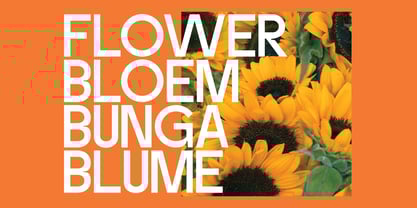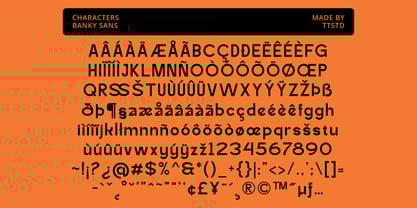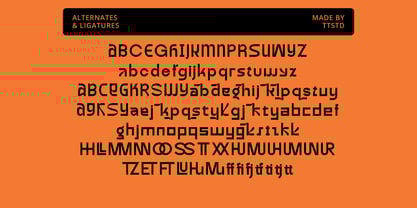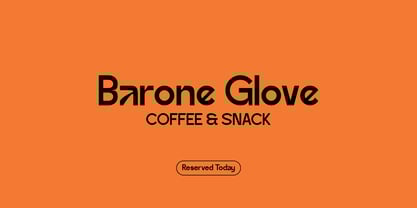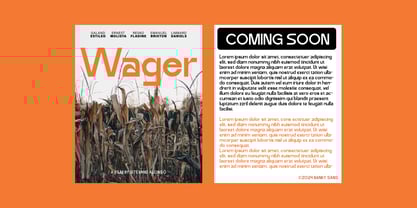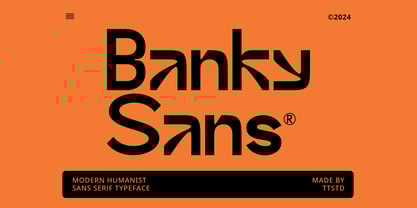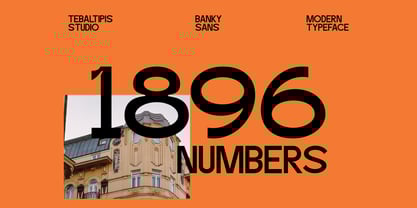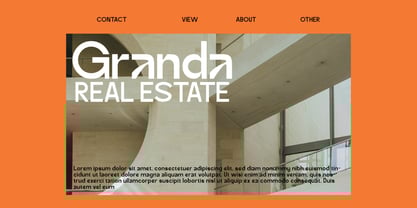
Banky Sans
by Tebaltipis Studio
The Banky Sans Font Family was designed by Dzulka Elfira and published by Tebaltipis Studio. Banky Sans contains 2 styles and family package options.
A new Banky Sans that we created special for Headline, Title and more stand out typography needs. It's so perfect to add your style and headline overview. And specially for Headline font, we crafted for unique style and modern feels so enjoy to create any project that will show your main idea out. Banky Sans - A Condensed Bold Display Typeface Banky Sans the perfect bold and narrow font for headlines and captivating displays. Ideal for designers seeking a modern and impactful look with retro and vintage vibes. Transform your projects with this regular and slant, condensed typeface that demands attention. Banky Sans Font come with 250+ glyphs. The alternative characters were divided into several Open Type features such as Swash, Stylistic Sets, Stylistic Alternates, and Ligature. The Open Type features can be accessed by using Open Type savvy programs such as Adobe Illustrator, Adobe InDesign, Adobe Photoshop Corel Draw X version, And Microsoft Word. And this Font has given PUA unicode (specially coded fonts). so that all the alternate characters can easily be accessed in full by a craftsman or designer.
Designers: Dzulka Elfira
Publisher: Tebaltipis Studio
Foundry: Tebaltipis Studio
Design Owner: Tebaltipis Studio